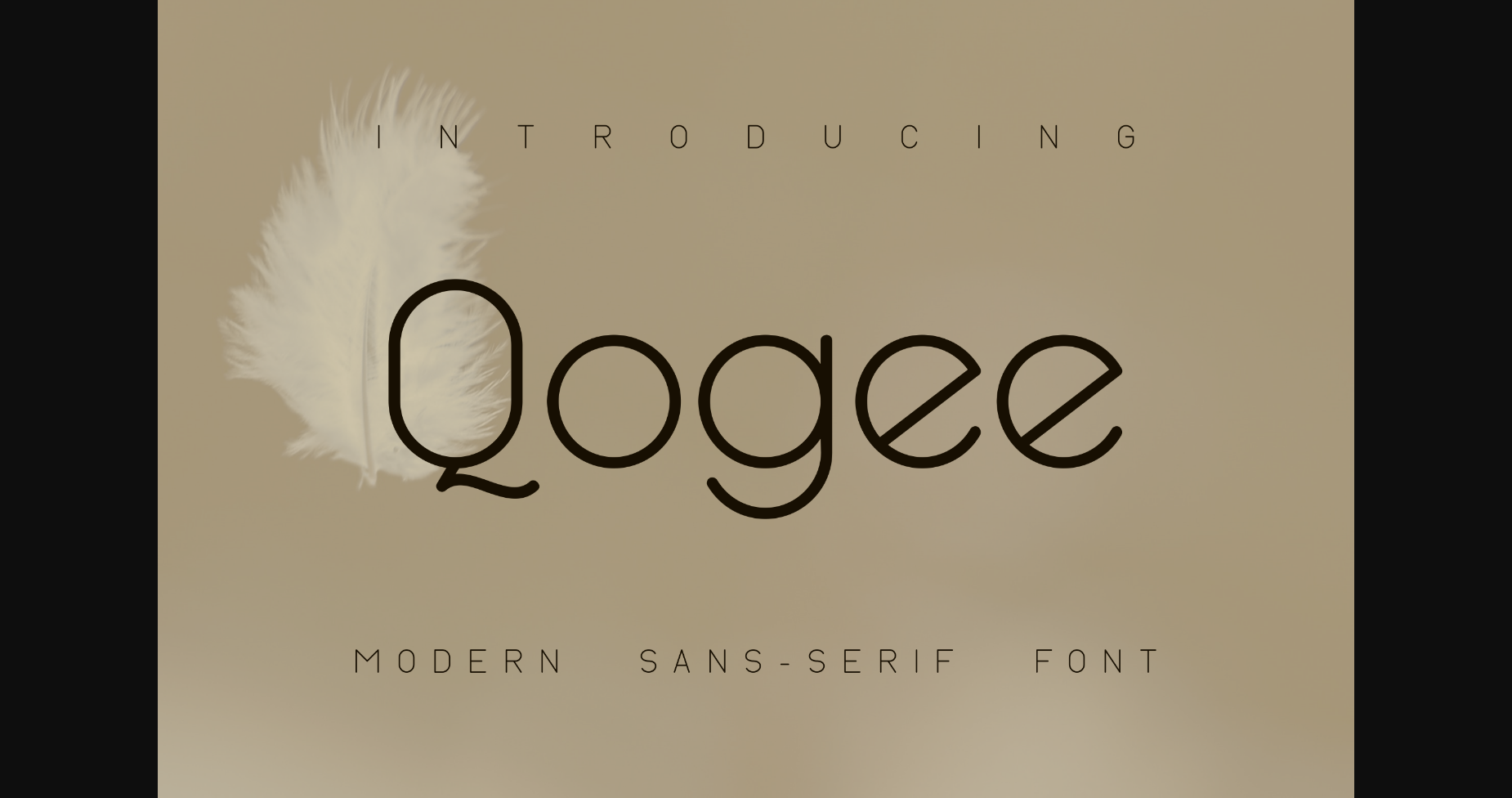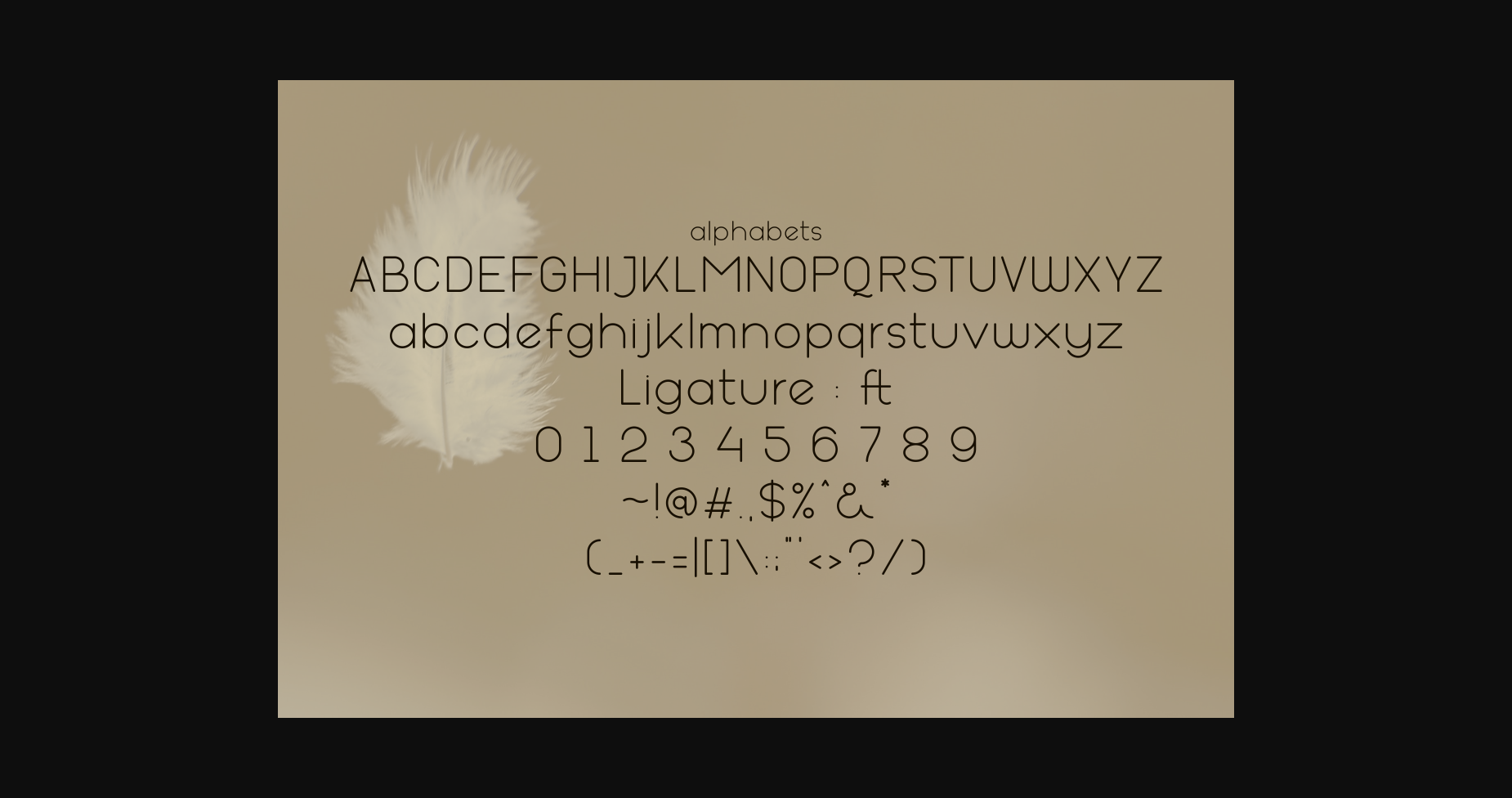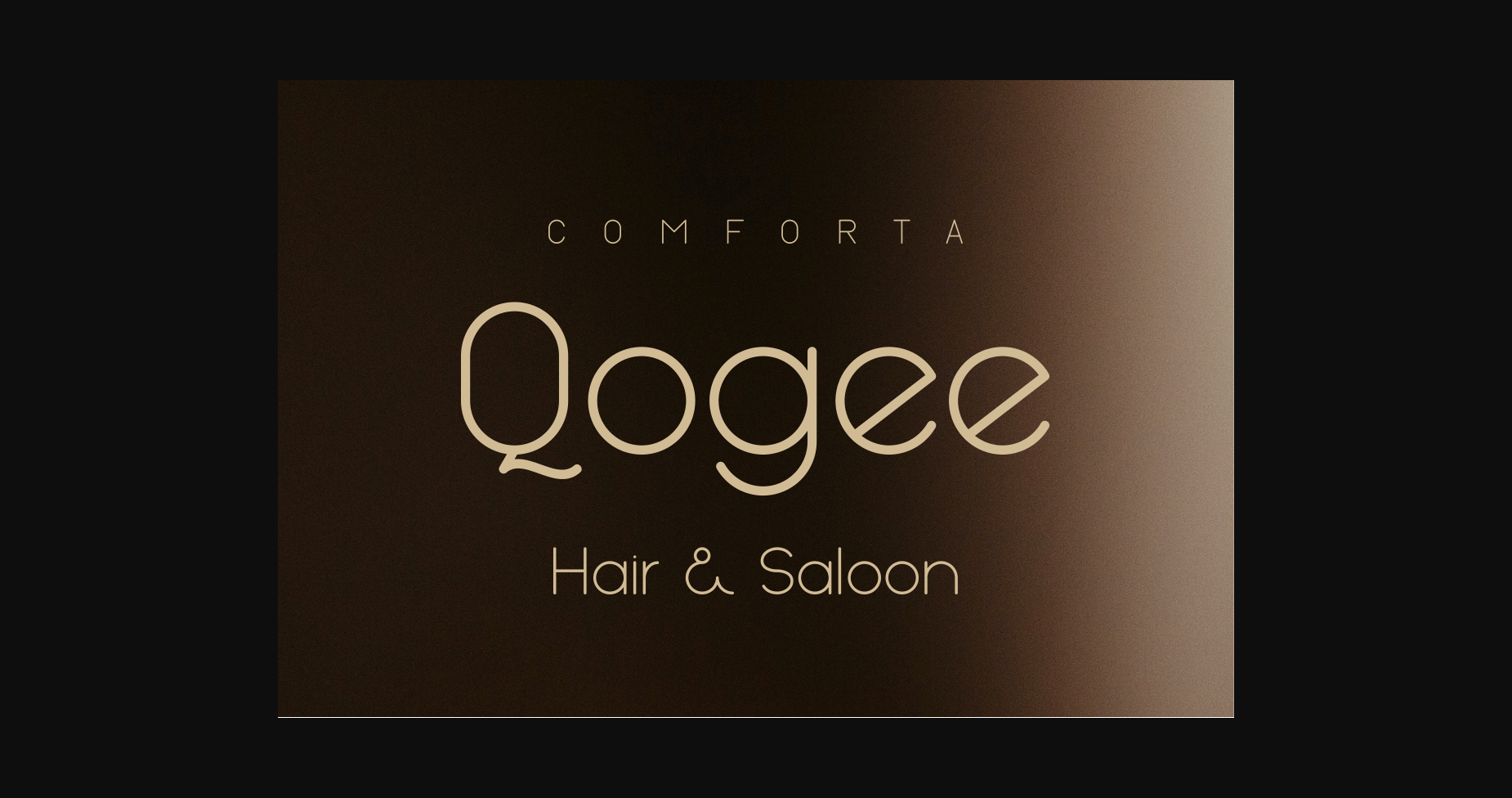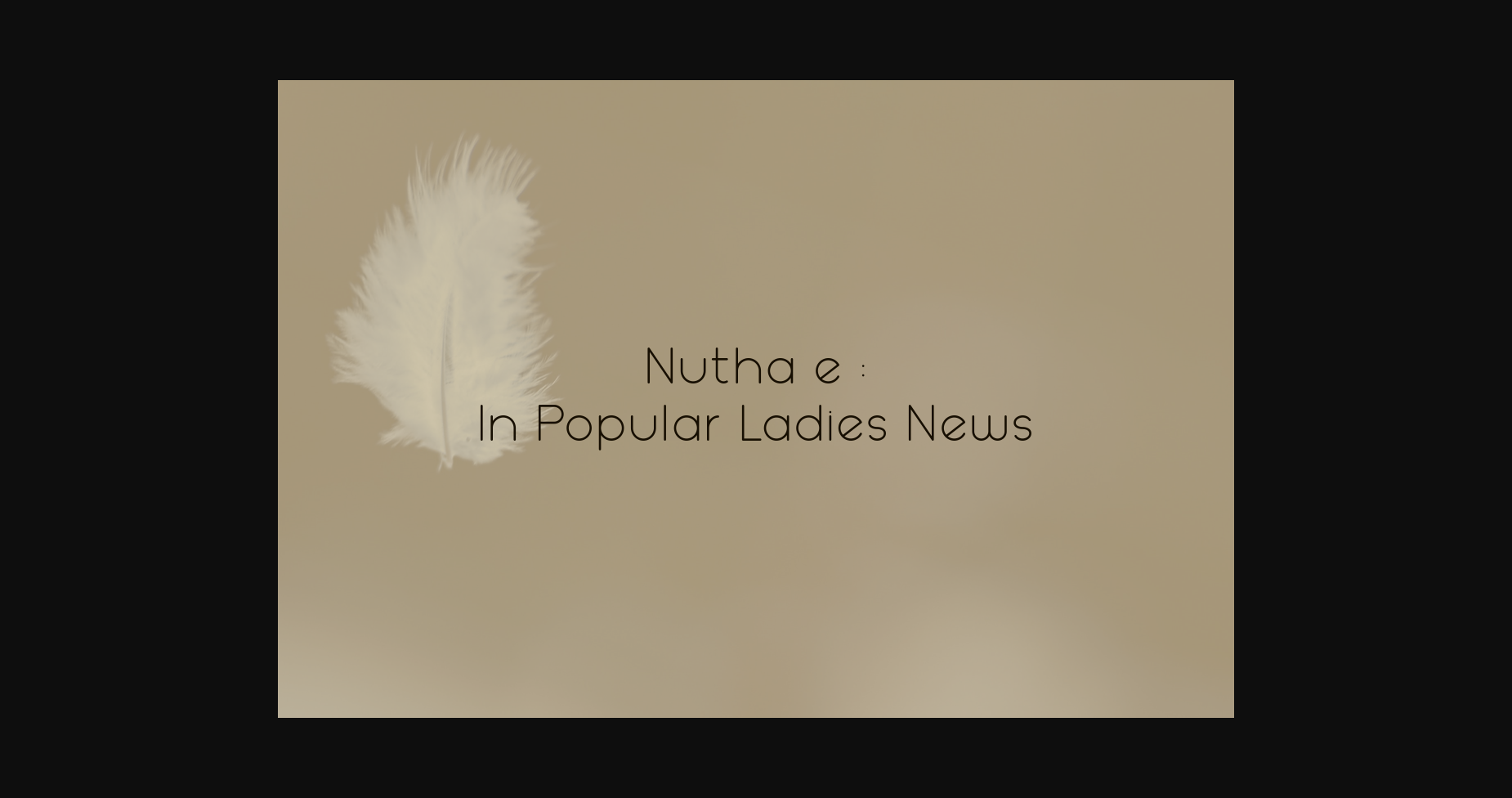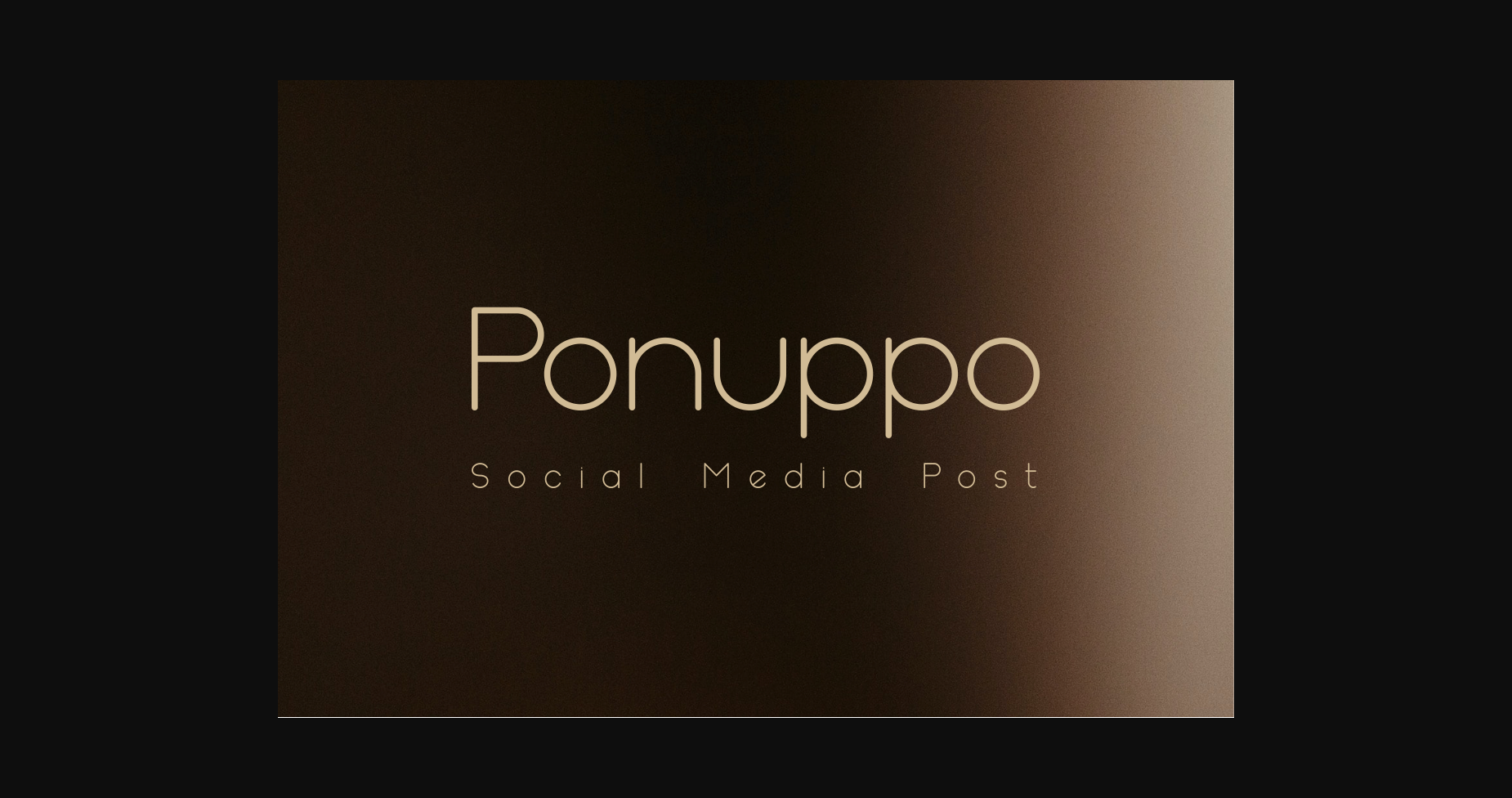
About Qogee Font
Qogee is a neat and stylish sans-serif font that exudes a contemporary vibe. With its clean and balanced letterforms, Qogee offers a harmonious blend of professionalism and creativity. Its versatility makes it suitable for a wide range of design applications, from branding to editorial design. Embrace the sleek elegance and modernity of Qogee in your next project.